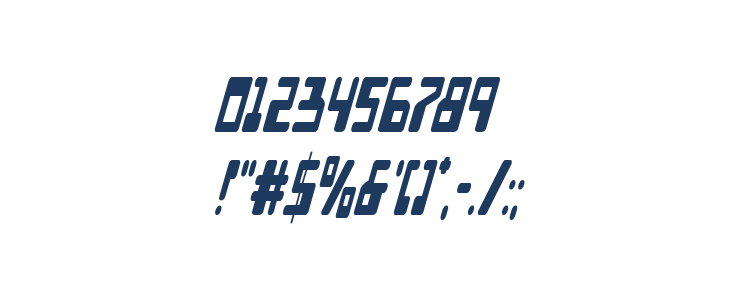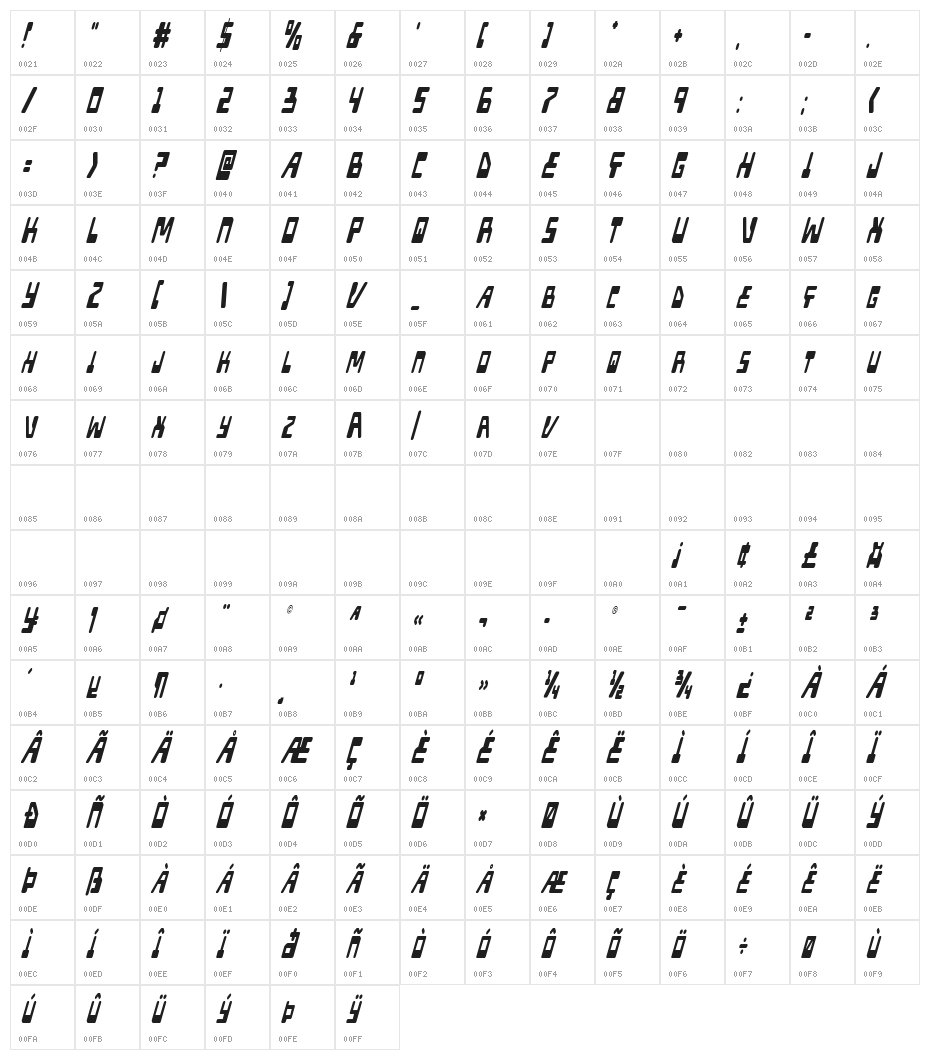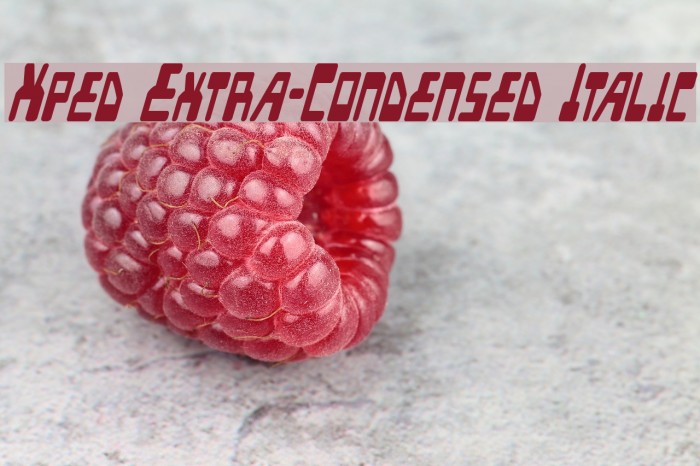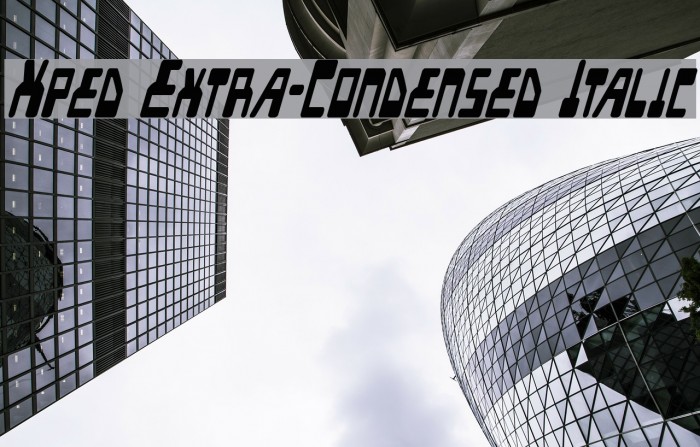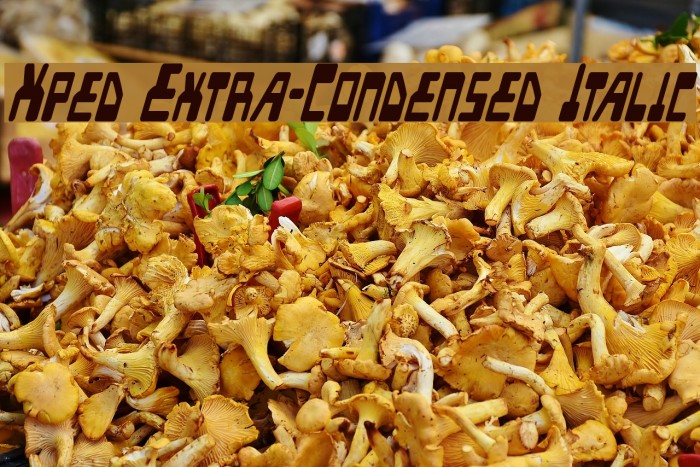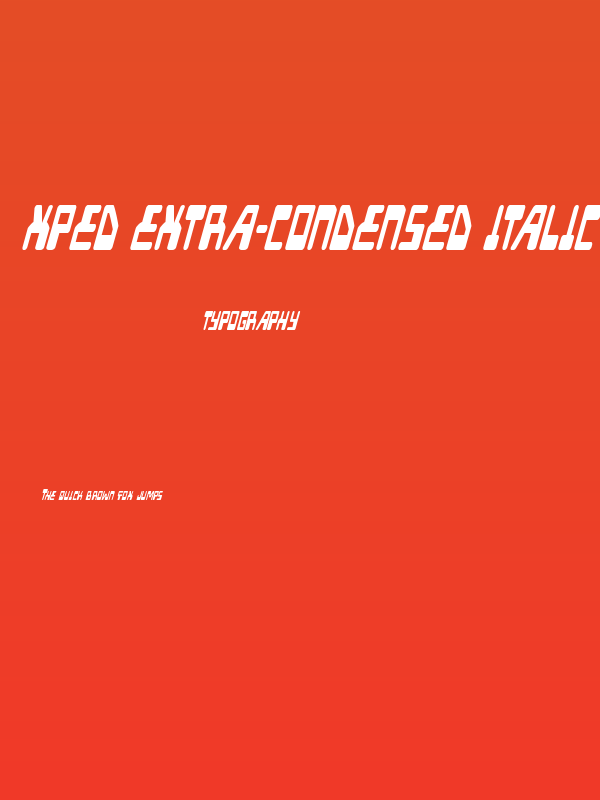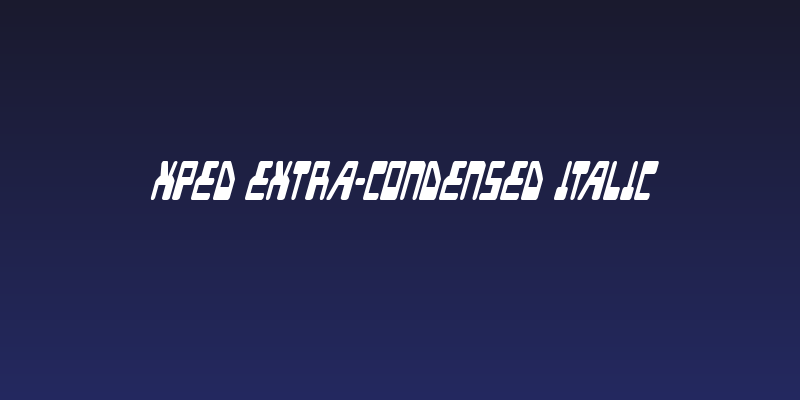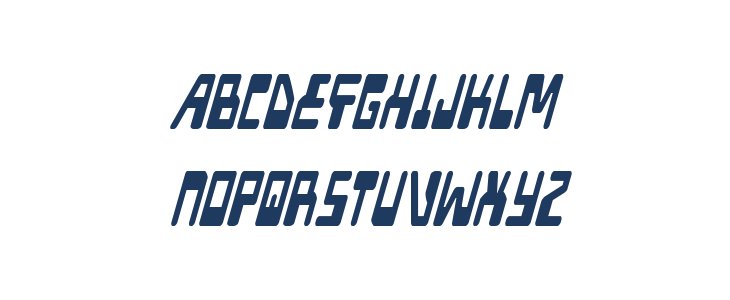
Xped Extra-Condensed Italic Font
Xped Extra-Condensed Italic Description
This font features a dynamic and modern design with a distinctly italicized style. The characters are extra-condensed, giving them a sleek and elongated appearance. The bold strokes and angular forms create a sense of speed and movement, making it ideal for attention-grabbing headlines or branding that requires a contemporary edge. The uppercase and lowercase letters maintain a consistent style, while the numerals and special characters complement the overall aesthetic. The font's unique design elements make it stand out, offering a fresh take on traditional italic fonts.